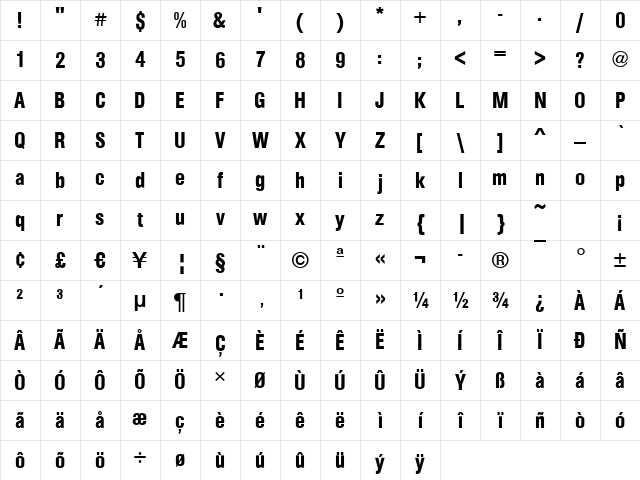
Arezzo-Cd Demi
Style: Demi
Arezzo-Cd Family
Arezzo-Cd Demi
Design Context for Arezzo-Cd
Arezzo-Cd is a composed and adaptable typeface that performs quietly and consistently across a wide range of design contexts.